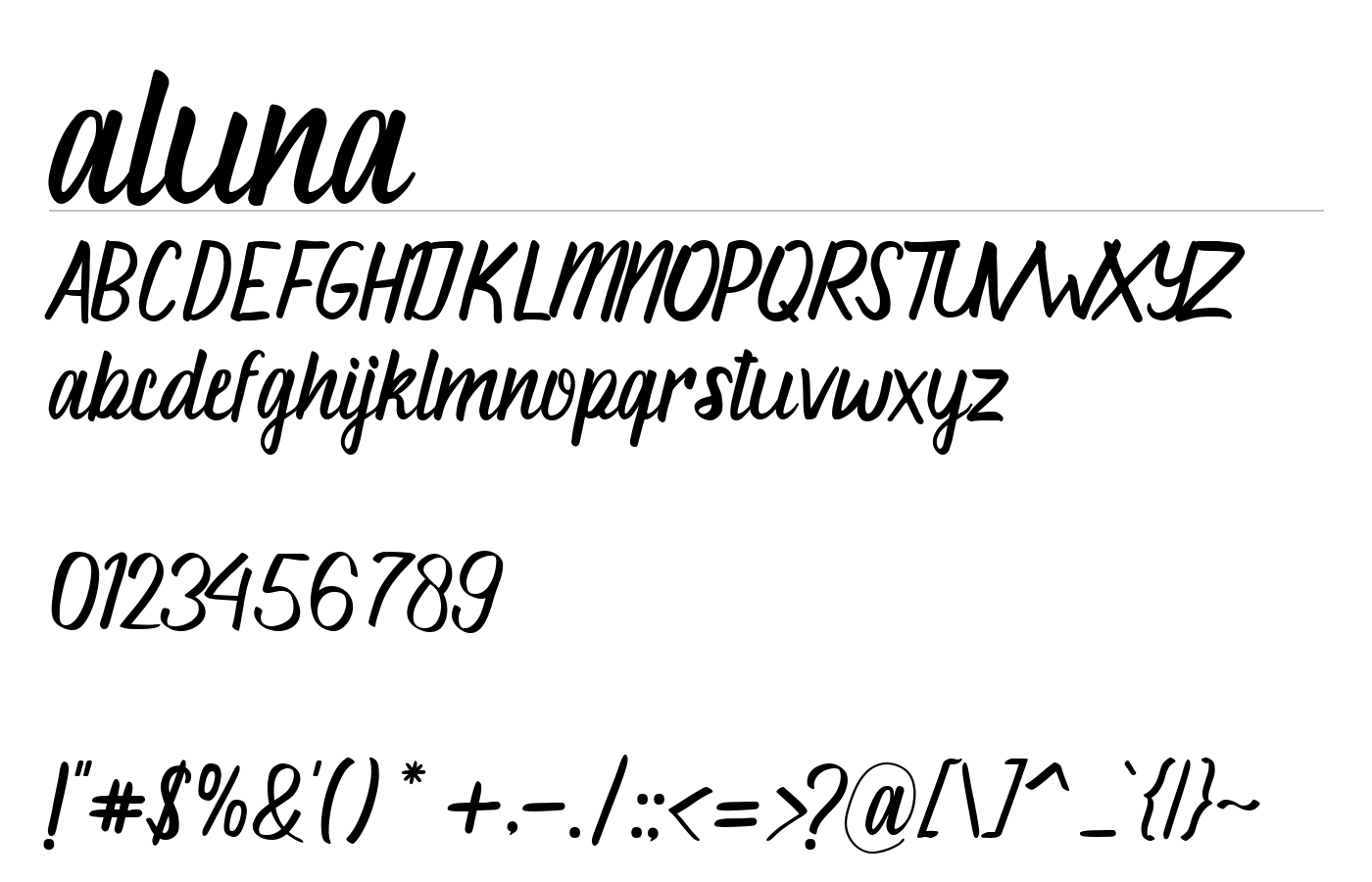
Aluna is a lively and playful script font with a hand-drawn feel, featuring smooth, flowing strokes and a casual yet refined style. Its moderate weight and slightly condensed letterforms make it highly legible, perfect for adding a personal, approachable touch to branding, invitations, or creative projects. This font works well in contexts where warmth and friendliness are desired without sacrificing clarity.
aluna Font
About aluna Font
| Font family | aluna Font |
| Languages supported | Latin, Thai |
| Release date | 2018-03-26 |
| Designer | Jos Gandos |